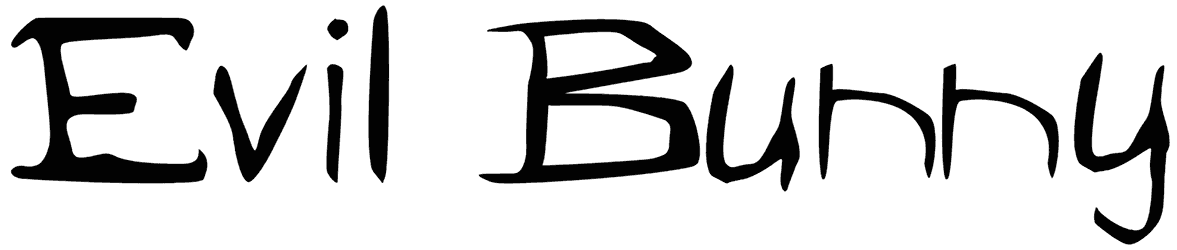
Evil Bunny Font
A flicker of cuteness teams up with buckets of spooky details, and the Evil Bunny is summoned to the matter. You might want to stay close to its crooked but good-enough expressive letterforms to uncover a creepy quality…
A flicker of cuteness teams up with buckets of spooky details, and the Evil Bunny is summoned to the matter. You might want to stay close to its crooked but good-enough expressive letterforms to uncover a creepy quality about your text.
There are horror movie promotions, Halloween decorations, gaming designs, and all these sorts of occasions, you’ll definitely come to need a stunning evil font like Evil Bunny. Its sharp letters can never run out of intrigue. So shall we?